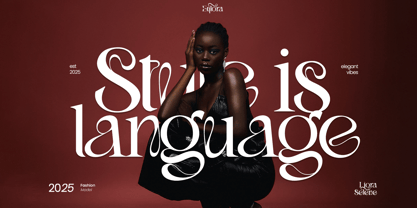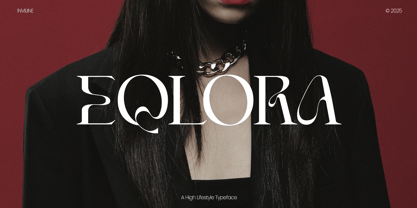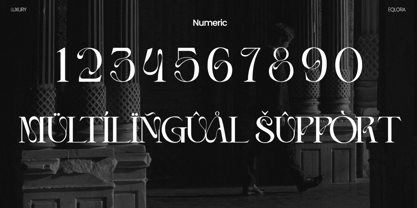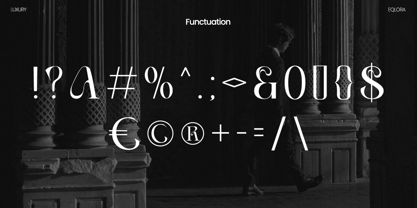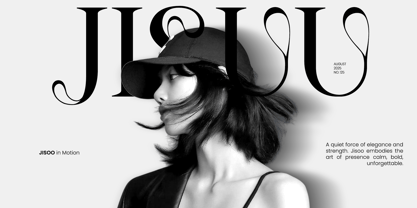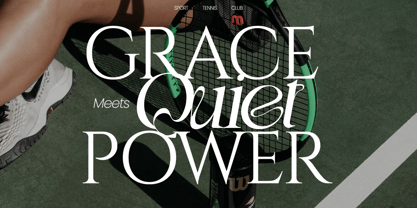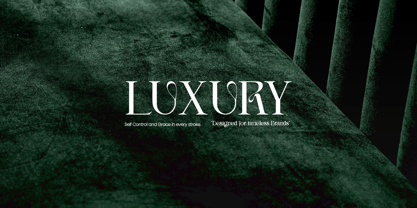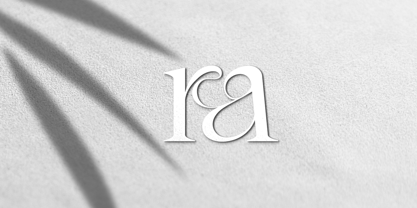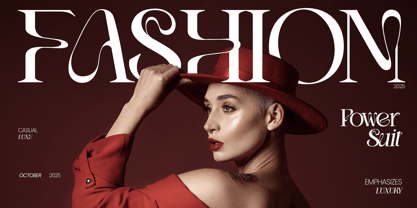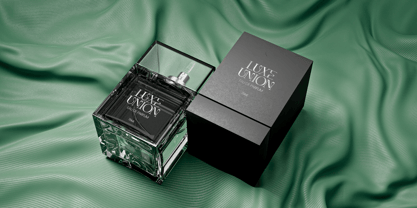
Eqlora
Eqlora is a high lifestyle typeface that brings graceful curves and luxury strokes into every letter, offering a full set of uppercase and lowercase characters, numerals, punctuation, multilingual support, and ligatures, making it the perfect font for fashion branding, premium packaging, editorial layouts, magazine headlines, beauty campaigns, and luxurious logo designs that demand presence and sophistication.